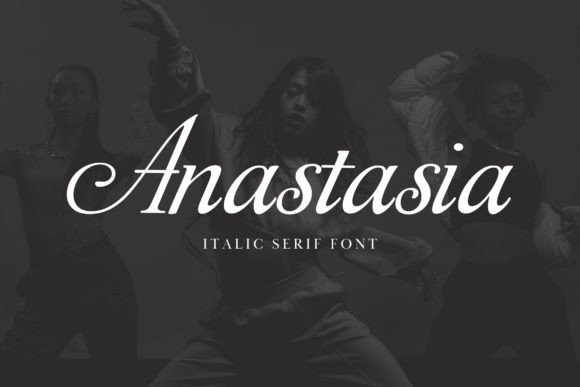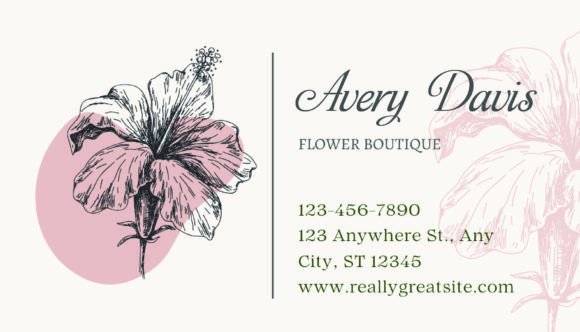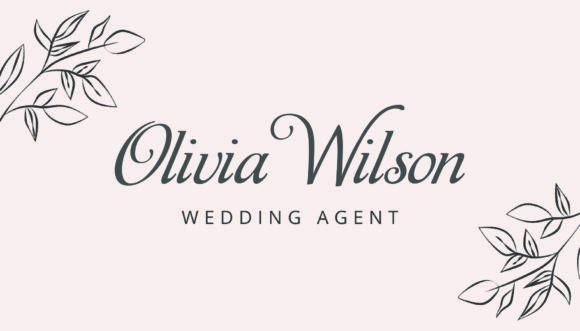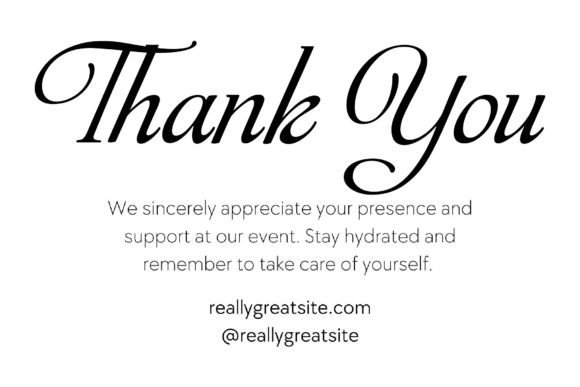
Anastasia Font: Elegant Serif for Wedding & Logo Design
About the Anastasia Font
Add a touch of class to your work with the Anastasia Font, a truly exceptional typeface. Introducing Anastasia, a sophisticated blend of elegance and professionalism. This italic font with serifs offers a cursive-inspired feel without the typical connected script, striking the perfect balance between traditional charm and modern design. Ideal for corporate branding, elegant invitations, and refined wedding designs, this font exudes a timeless sophistication that elevates any project. With its graceful curves and distinct serifs, this font adds a touch of class and sophistication, making it a versatile choice for a variety of applications.